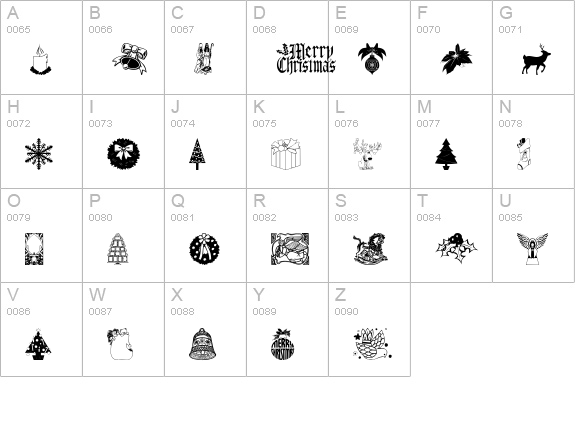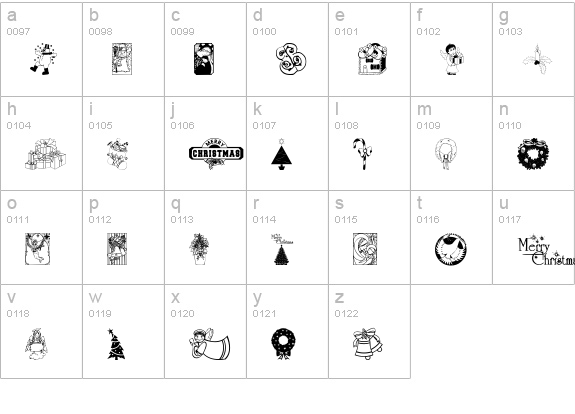
ChristmasTime Font Details
Introducing ChristmasTime font, the perfect typeface to add a touch of festive cheer to your designs. This delightful font captures the essence of the holiday season, with its whimsical curves and charming details, making it the ideal choice for all your Christmas-themed projects. With ChristmasTime font, you can instantly transform your invitations, greeting cards, posters, and more into works of art that exude warmth and joy. Whether you're creating personalized holiday gifts or designing eye-catching marketing materials, this font will bring a touch of magic to every project. The best part? ChristmasTime font is absolutely free! You can easily download it from FontsMarket.com, where you'll find a vast collection of high-quality fonts to suit all your design needs. With just a few clicks, you'll have access to this beautiful typeface, ready to be used in any application that calls for a festive touch. Designed with versatility in mind, ChristmasTime font offers a range of stylistic options, including alternate characters and ligatures, allowing you to customize your designs and add that extra special touch. Whether you prefer a more traditional look or want to experiment with a modern twist, this font has you covered. Spread the holiday spirit far and wide with ChristmasTime font. Its timeless appeal and playful elegance will captivate your audience and bring a smile to their faces. So, why wait? Download ChristmasTime font today, and let your creativity shine this Christmas season.